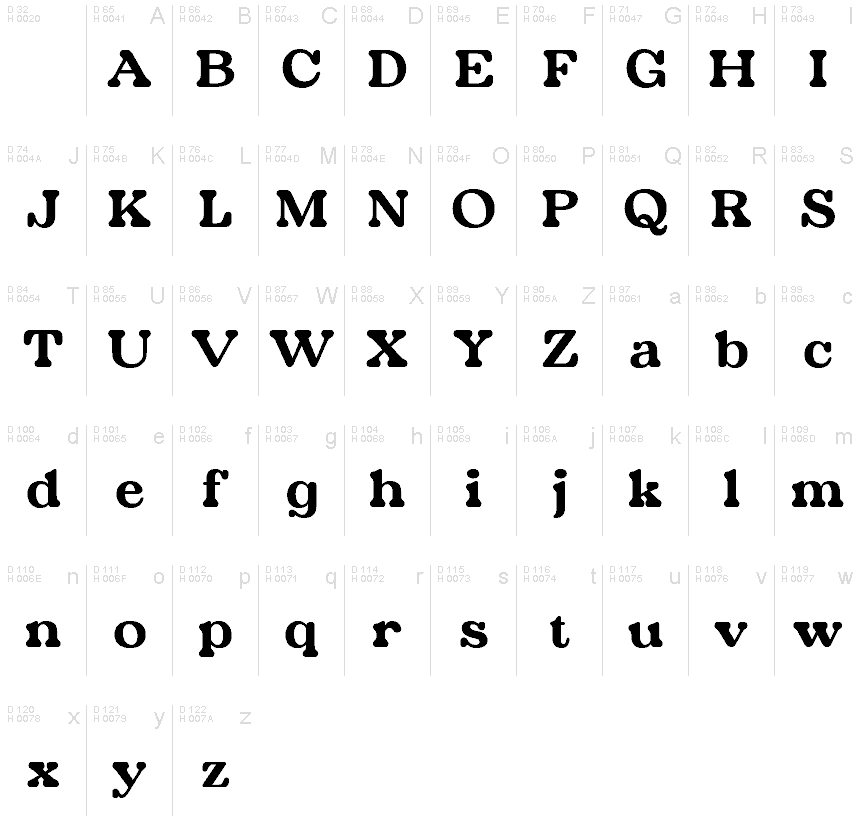
LunavieRounded-Regular Demo
Lunavie Rounded font by Craft Supply Co. is a bold expanded serif font with vintage inspiration and a modern, friendly aesthetic. Its curved edges and geometric modular design create legible texts excellent for attention-grabbing headings. The steps playful appearance renders it an elegant choice of type suitable for satisfied audiences of all generations.